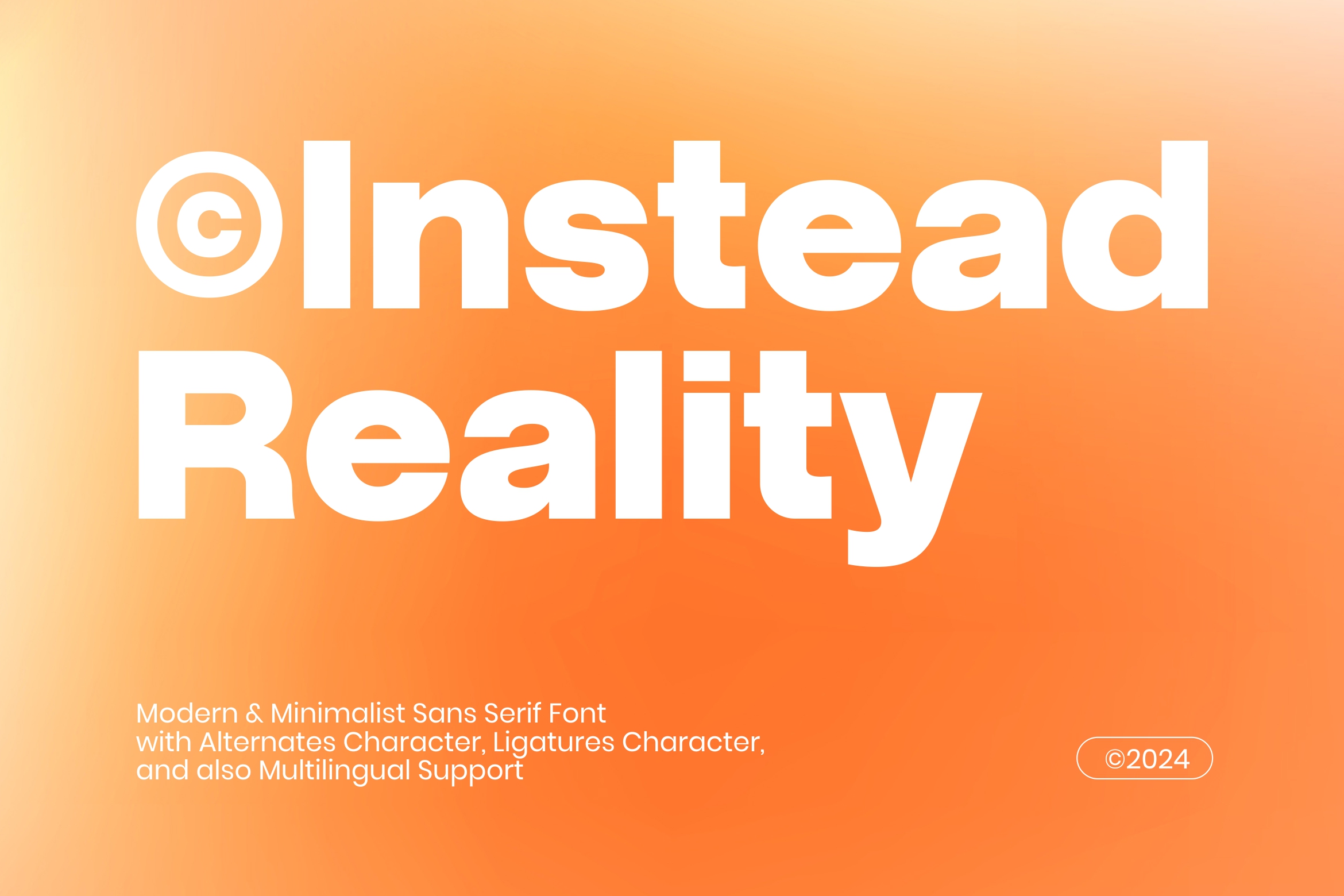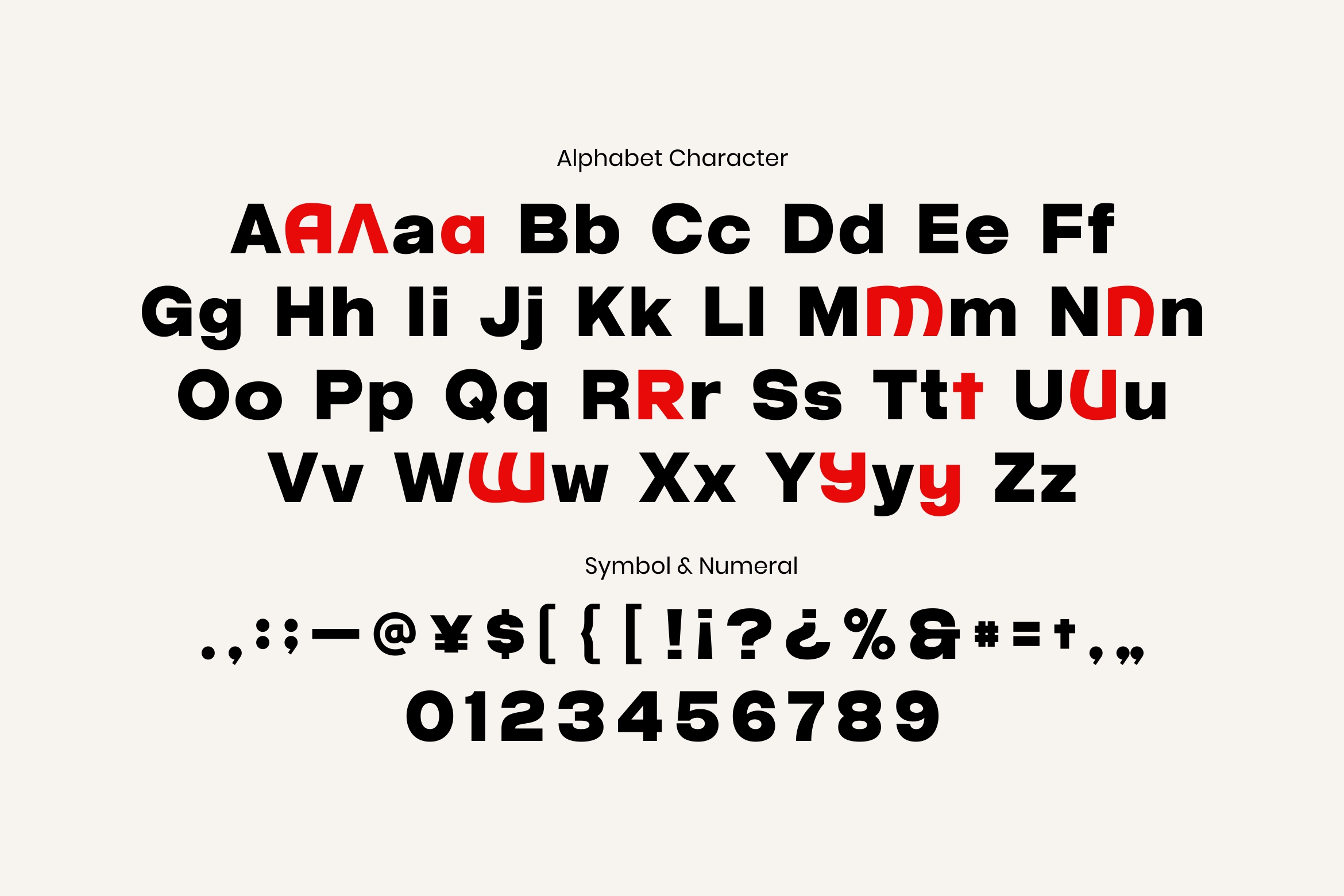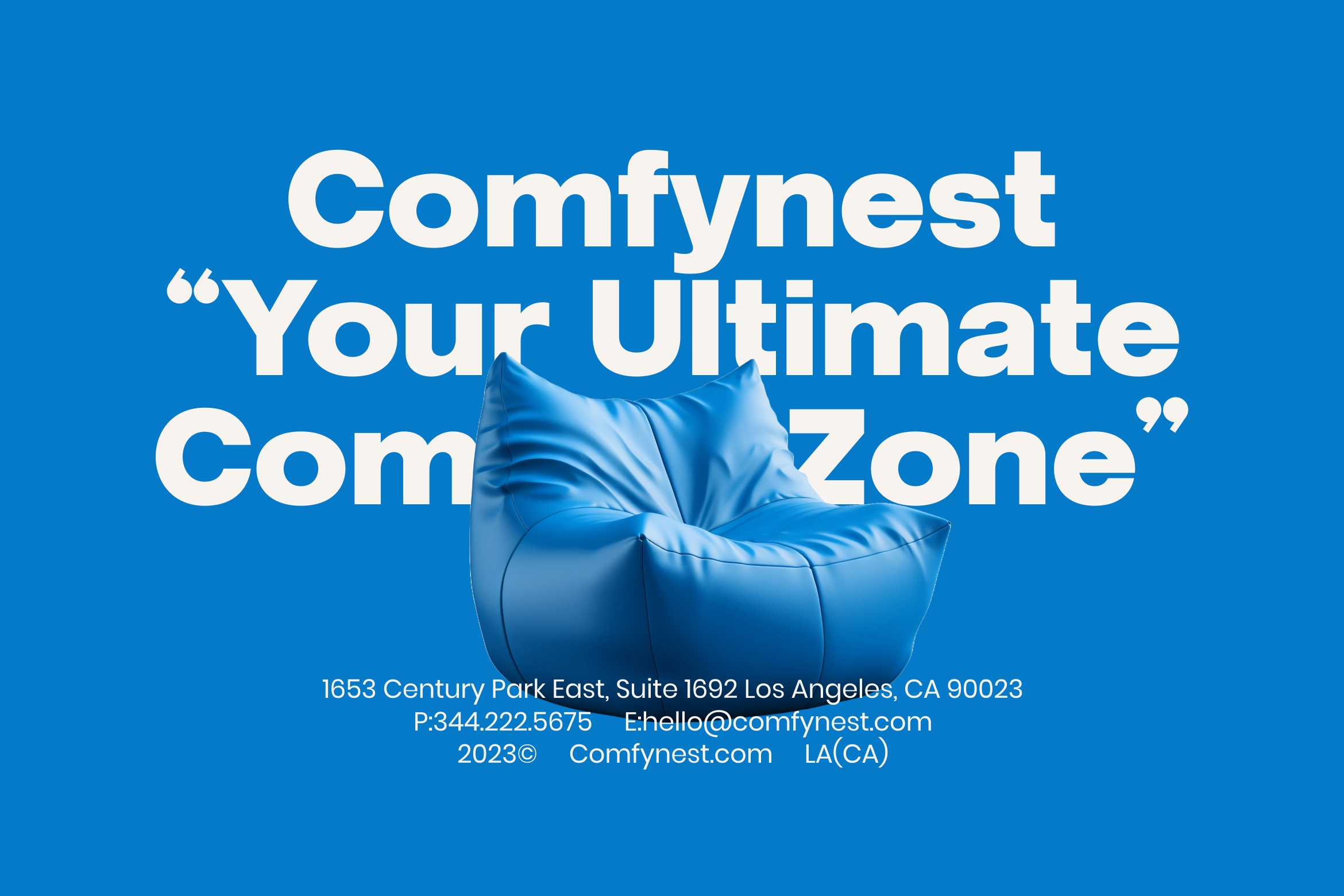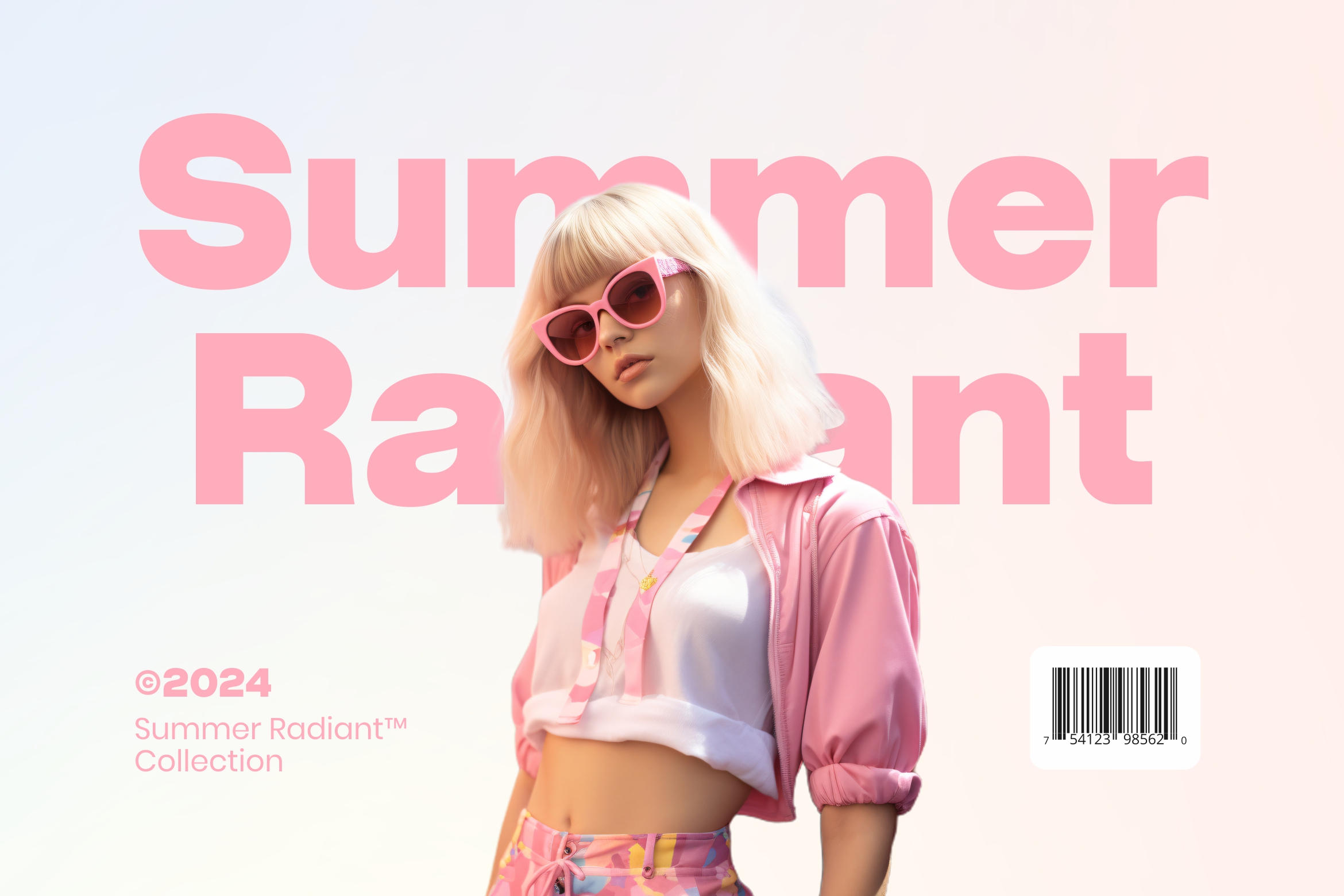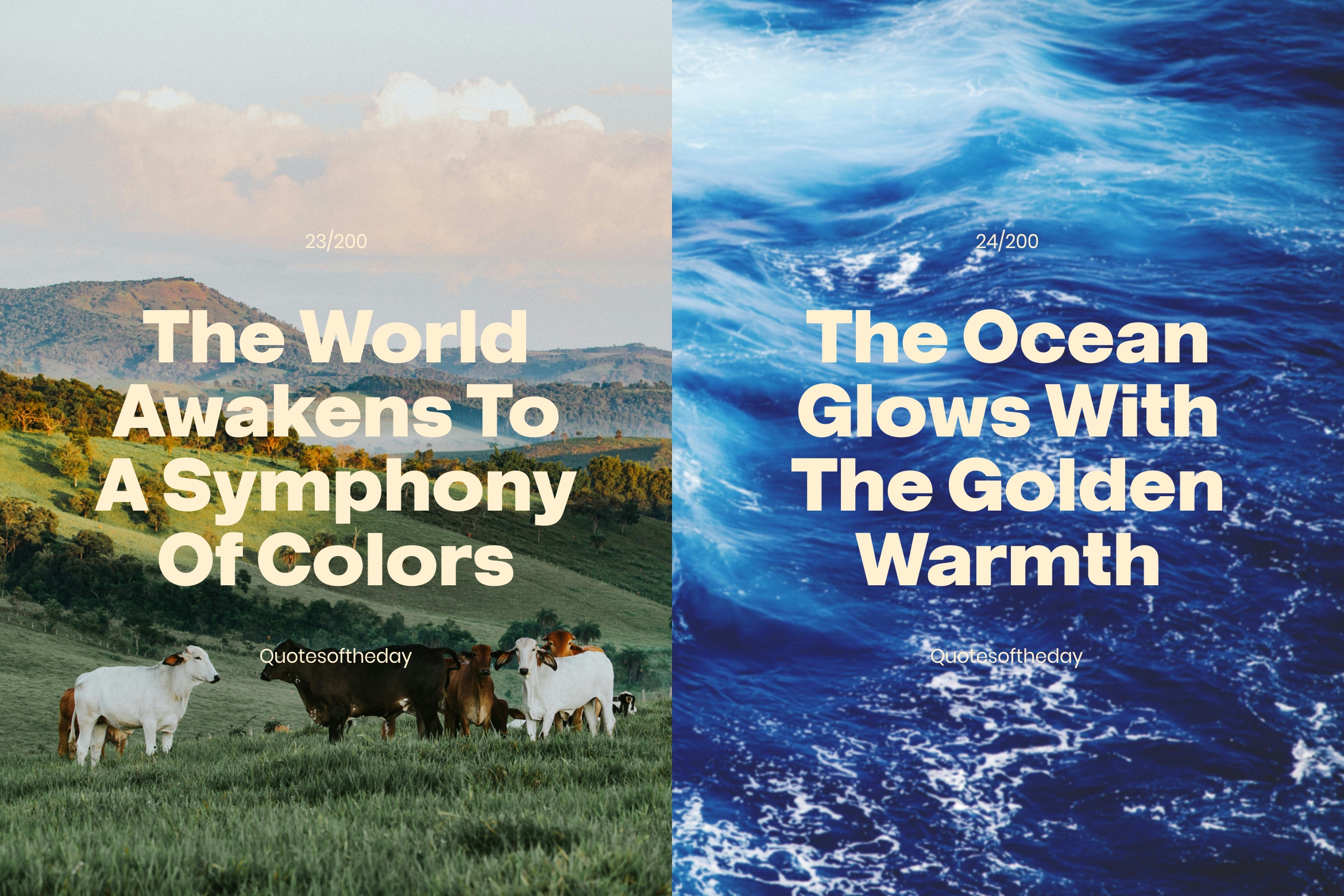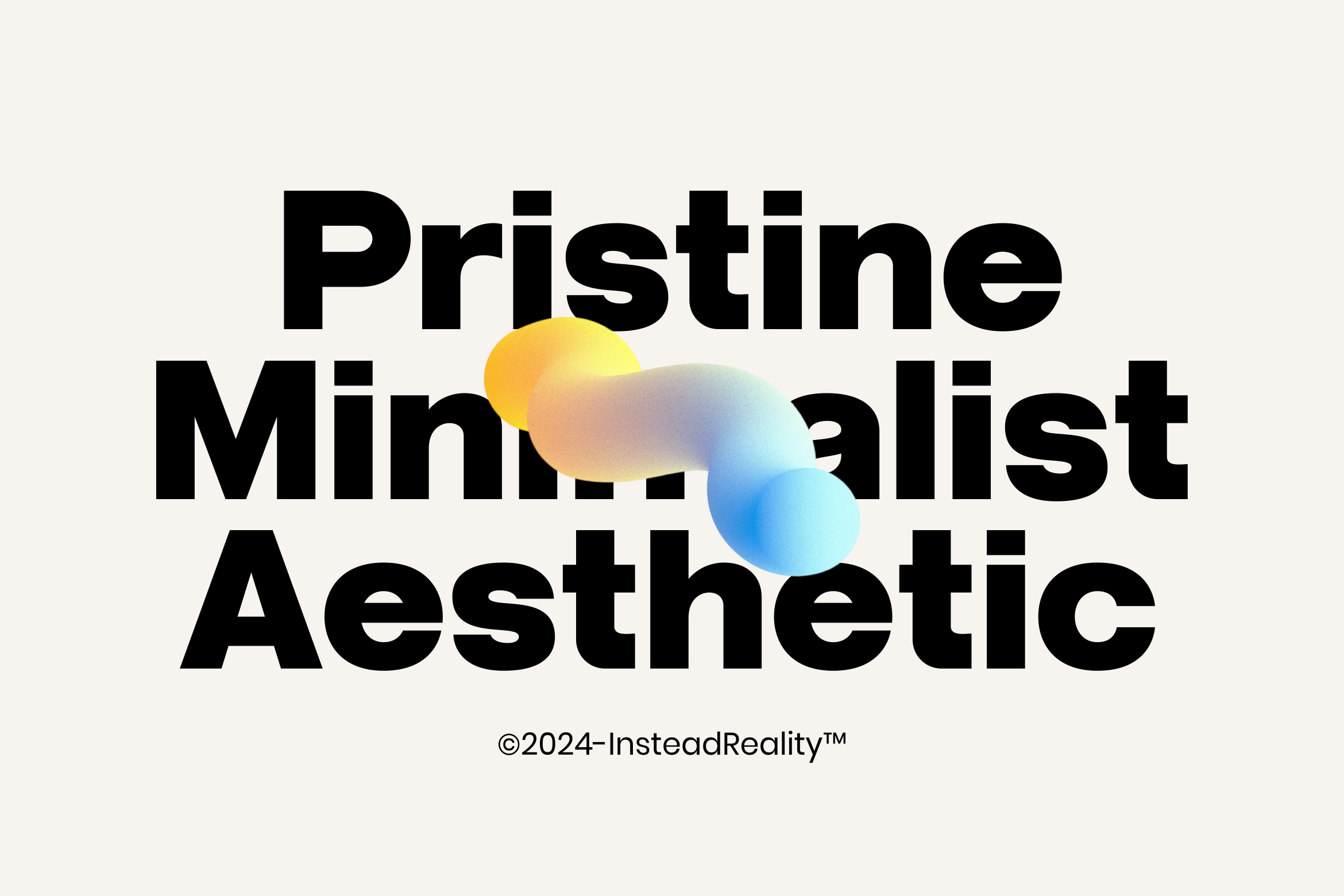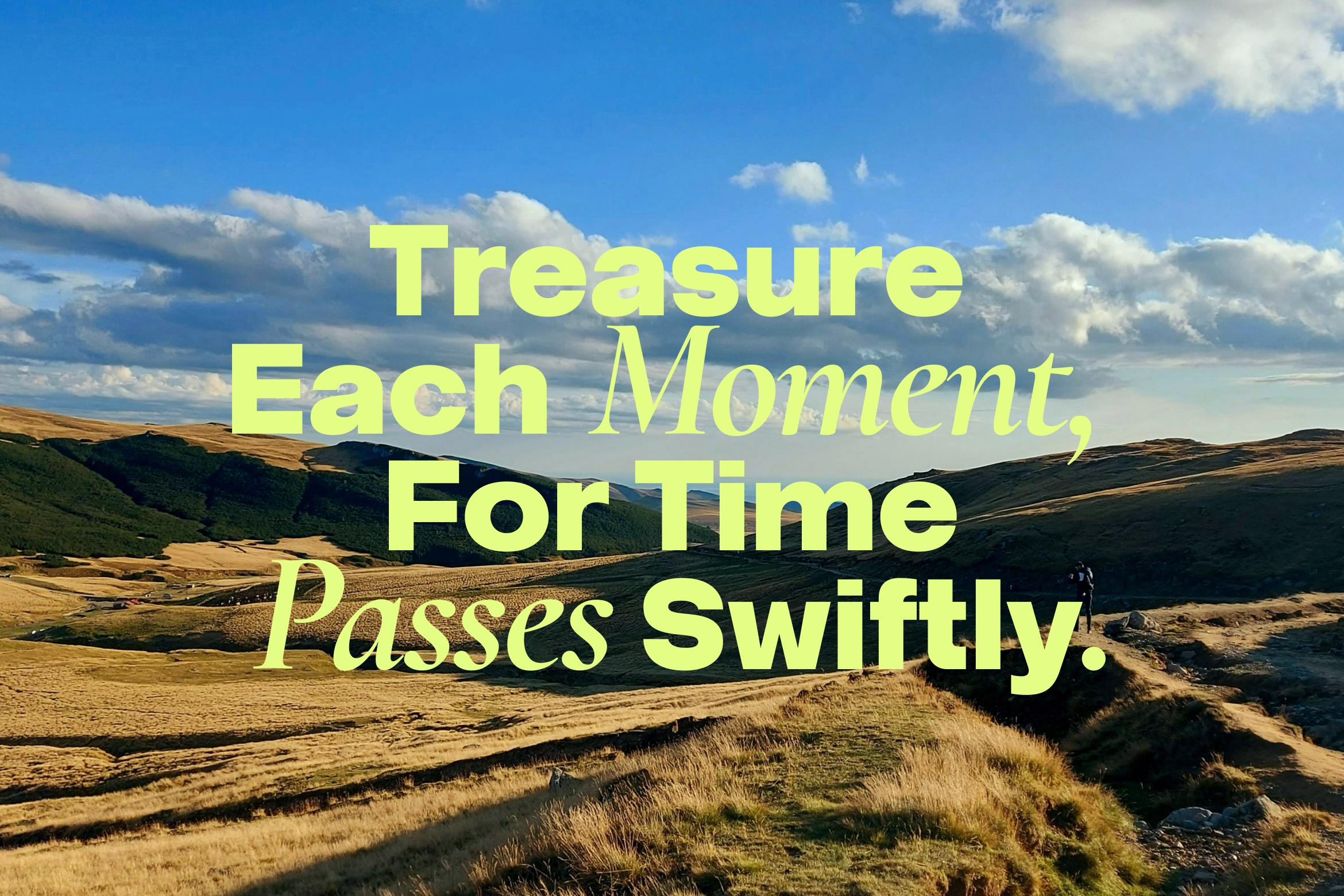
Instead Reality
Instead Reality is a modern sans serif font that blends bold minimalism with a touch of human warmth. Its rounded structure and clean geometry make it highly readable while retaining a distinct character. Designed for both digital and print use, it features standard and alternate letterforms, ligatures, and multilingual support — allowing for expressive branding with consistency and style.
Perfect for lifestyle branding, editorial design, social media graphics, and merchandise, Instead Reality delivers clarity without sacrificing personality. Whether you’re crafting elegant fashion campaigns or inspirational poster series, this font stands as a dependable yet striking design companion.